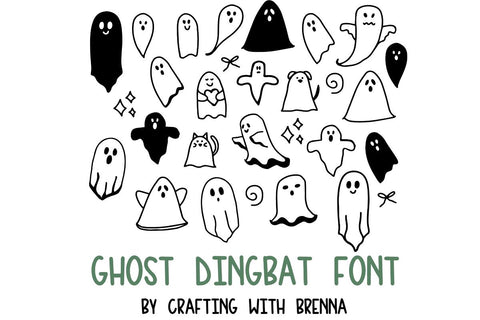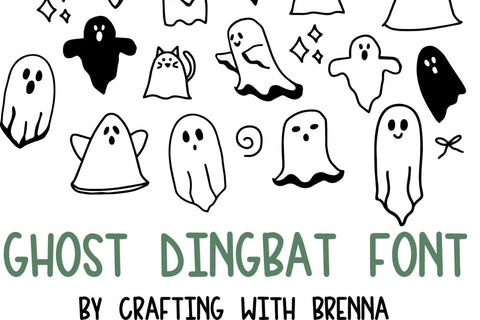
Ghost Dingbat Font
This font will be perfect for all your Craft projects! Use it to make custom shirts, keychains, valentines, tags, bags, and whatever else you can think of!